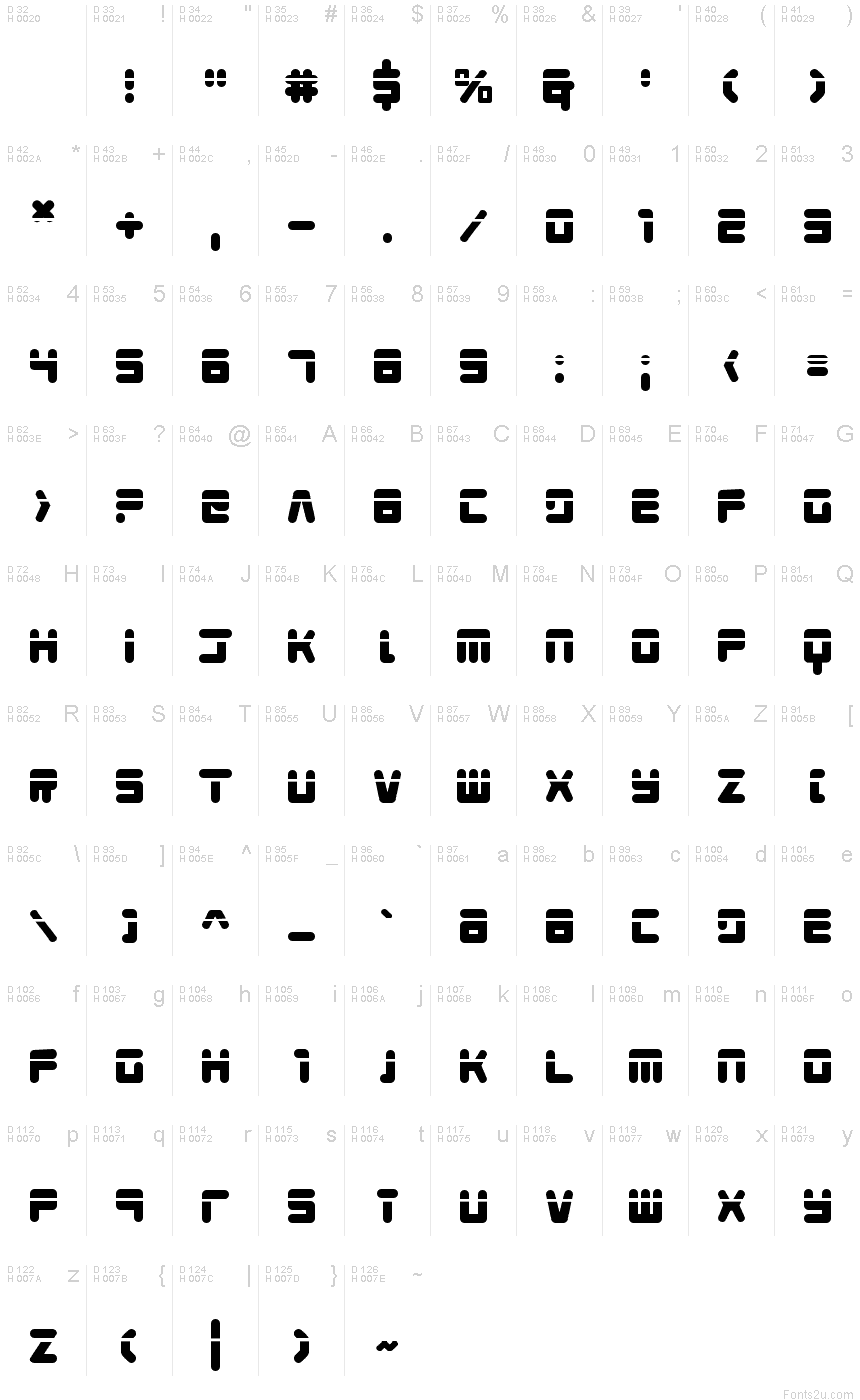
Young Techs Laser by Daniel Zadorozny of Iconian Fonts is a free futuristic display font built from broad geometric strokes and rounded rectangular forms. Deep horizontal cuts split the lettering into stacked bands, with narrow gaps lending it the look of machined panels. The silhouette is dense, low, and emphatically modular.
Technology brands and gaming studios can use it for logos, packaging, and title cards, drawing on its chunky electronic surface. Its panel-like divisions also echo circuit paths and industrial housings, so the lettering can become part of interface graphics or hardware illustration.